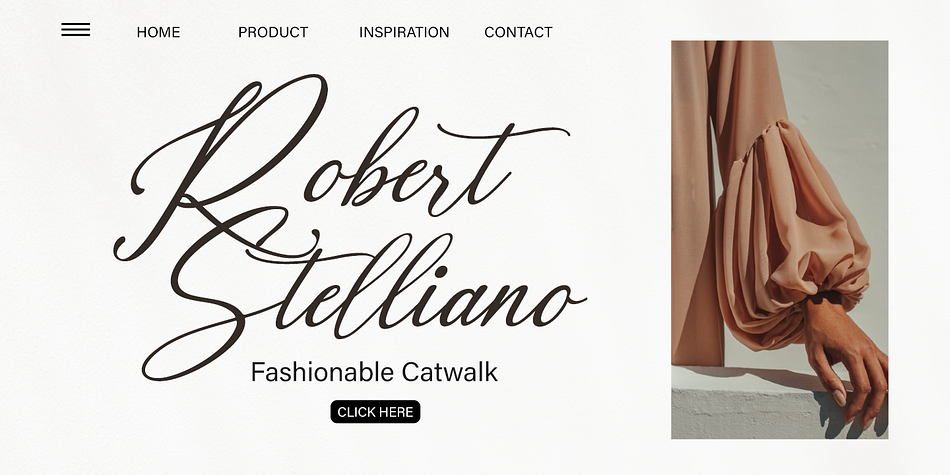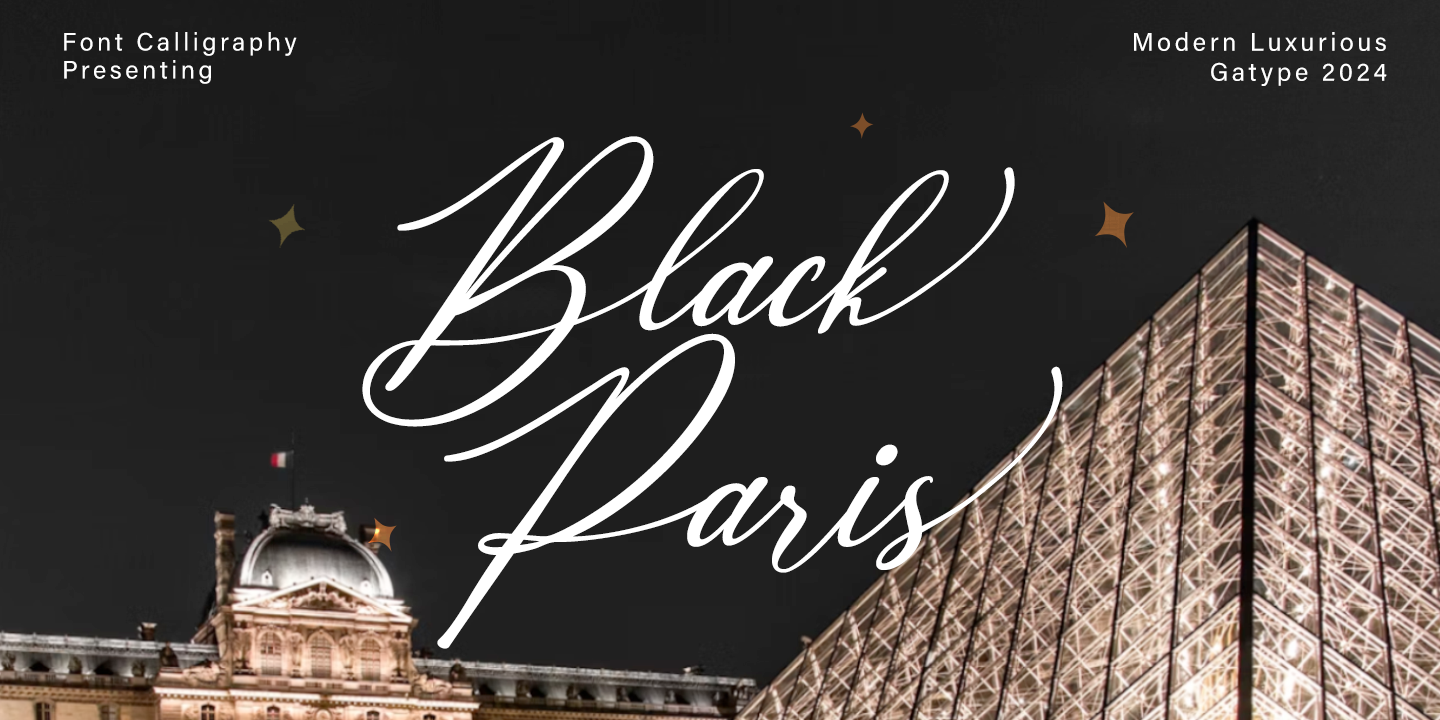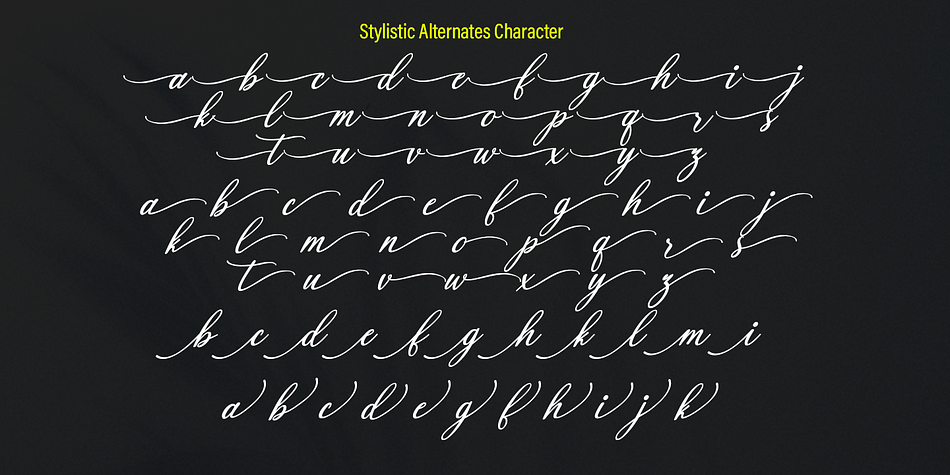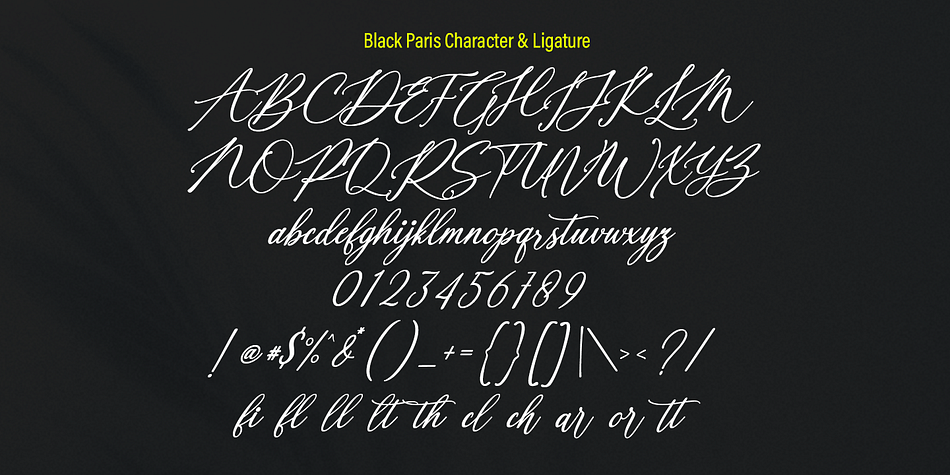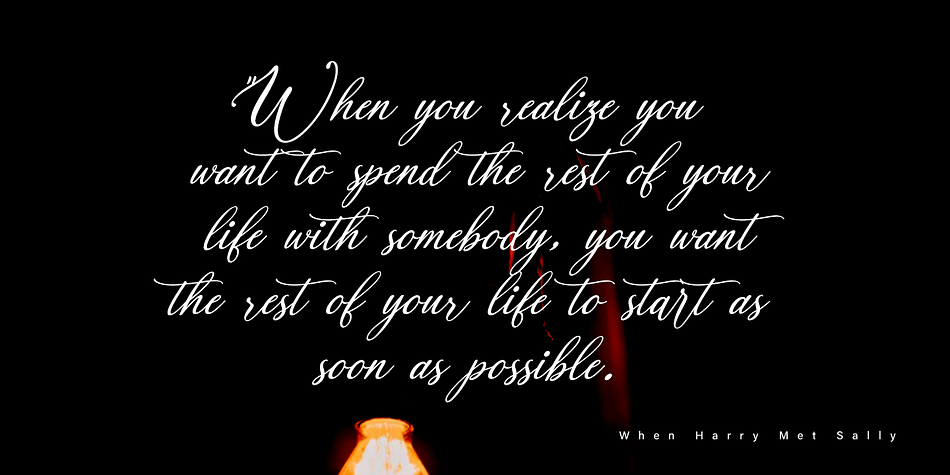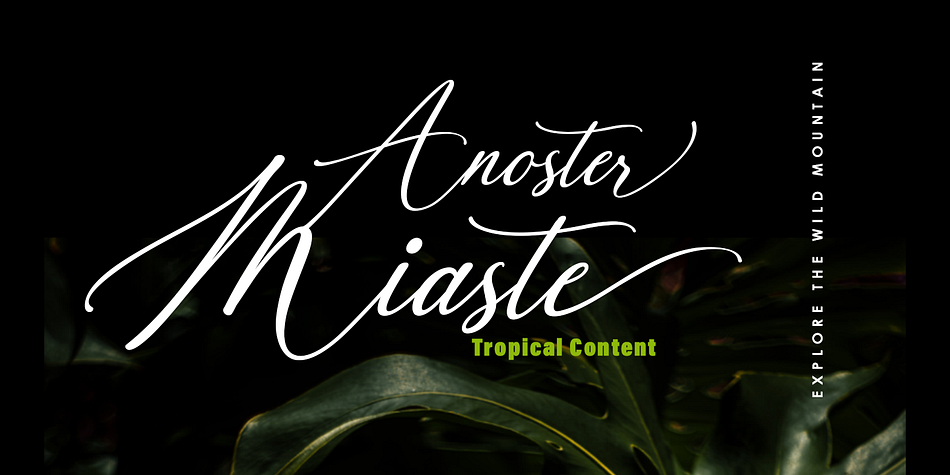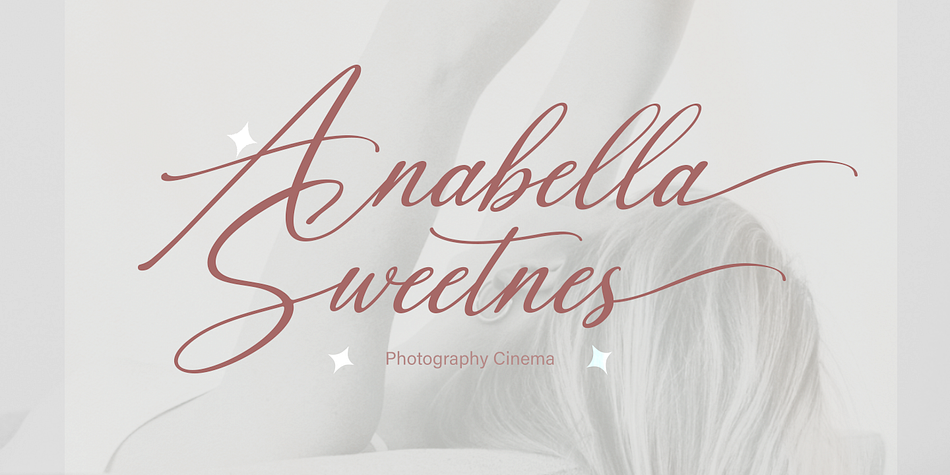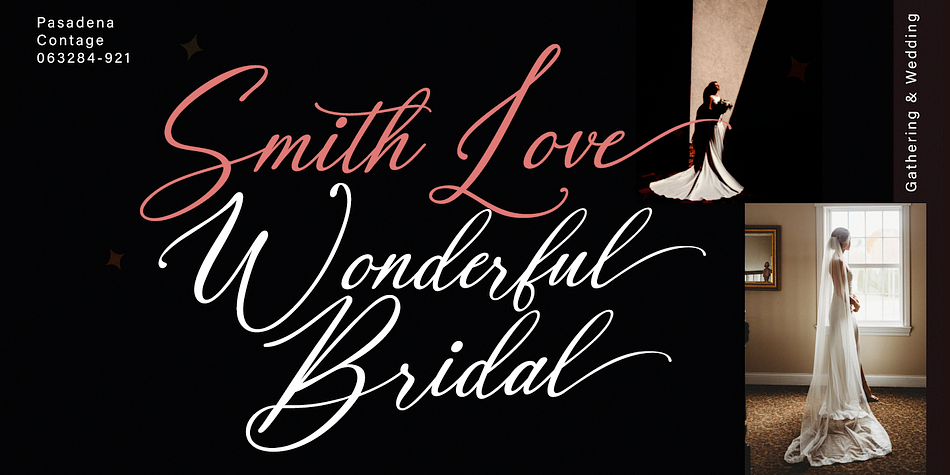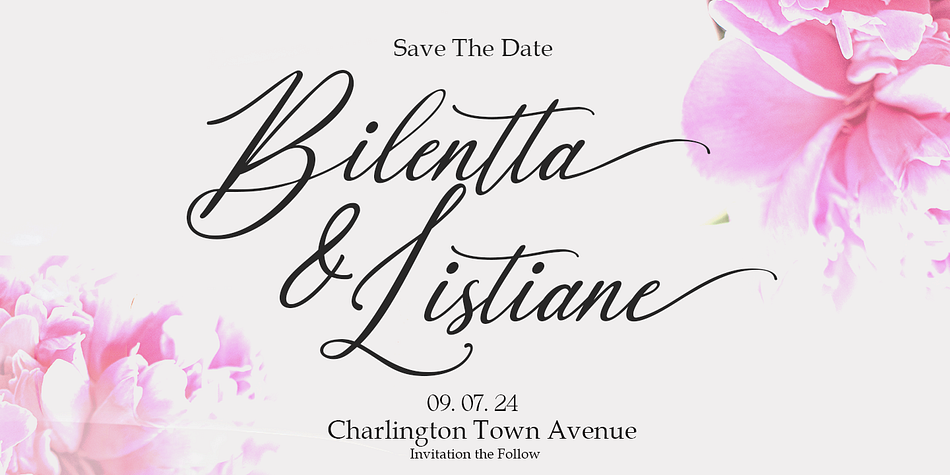
Black Paris
Black Paris is a modern calligraphy font family published by Gatype.
Latest new modern calligraphy font - Black Paris. This beautiful script is for those who need elegance and style for their designs and is perfect for wedding invitations, save the date cards and feminine branding.
Black Paris includes a complete set of Basic Uppercase and Lowercase Characters, Numbers and Punctuation. Also contains ligatures and many alternative styles to perfectly recreate natural calligraphy (check the preview to see them all).